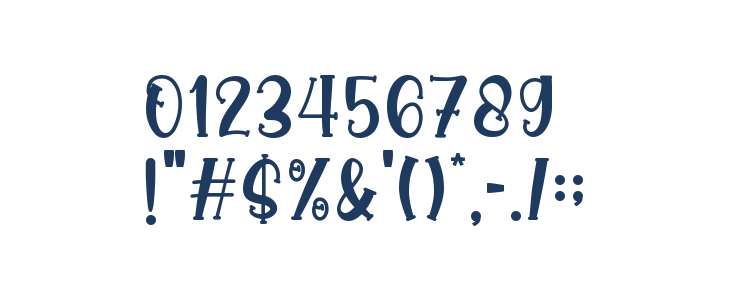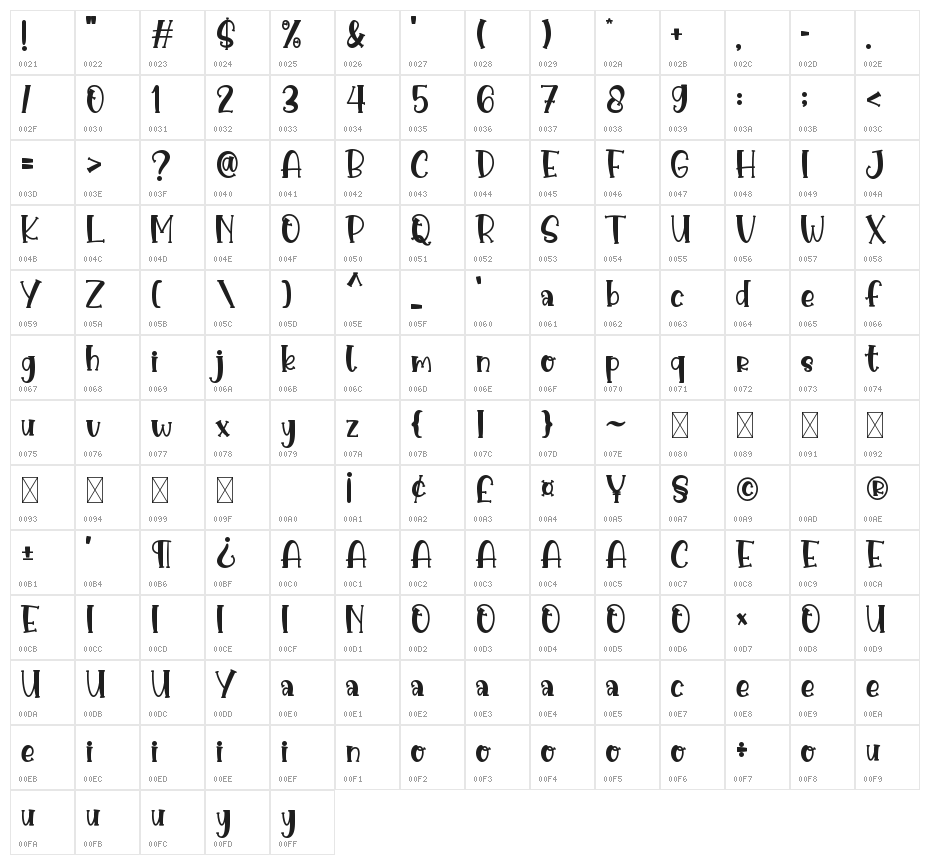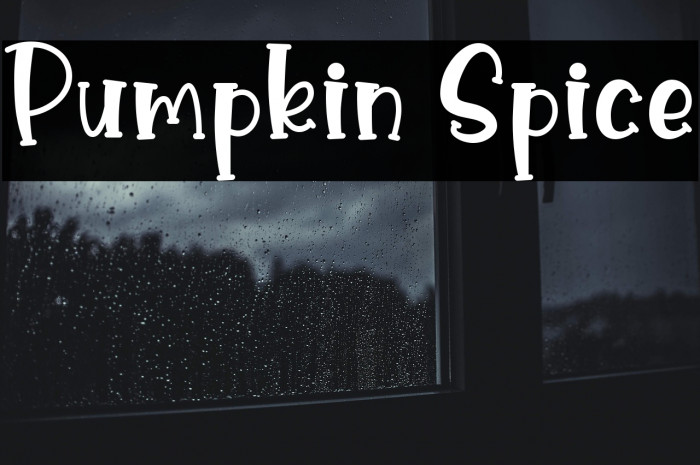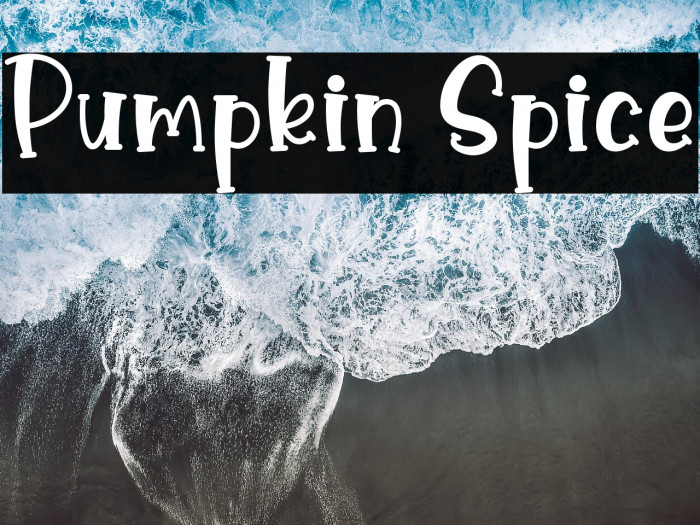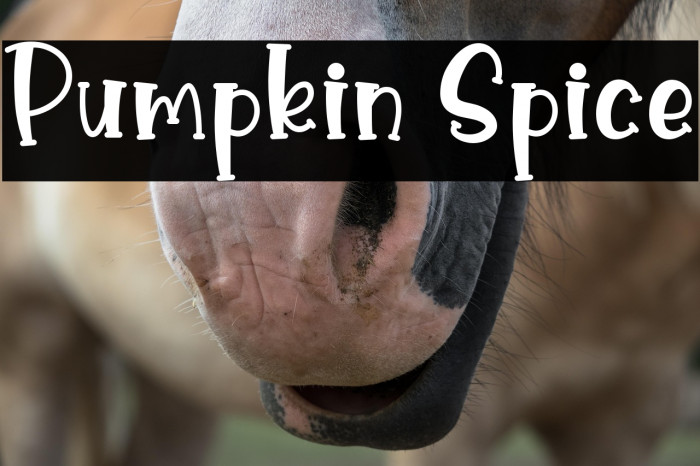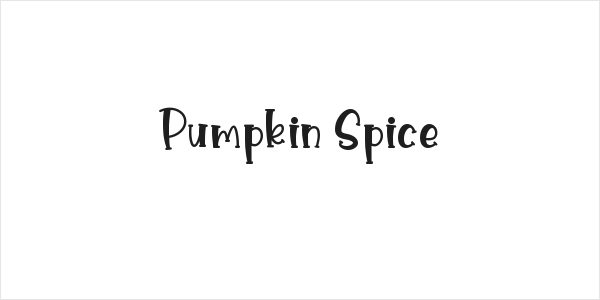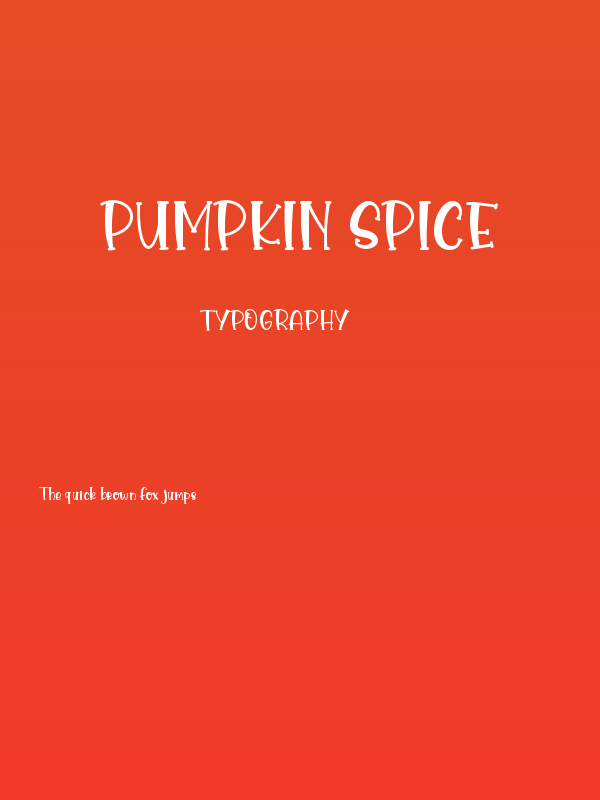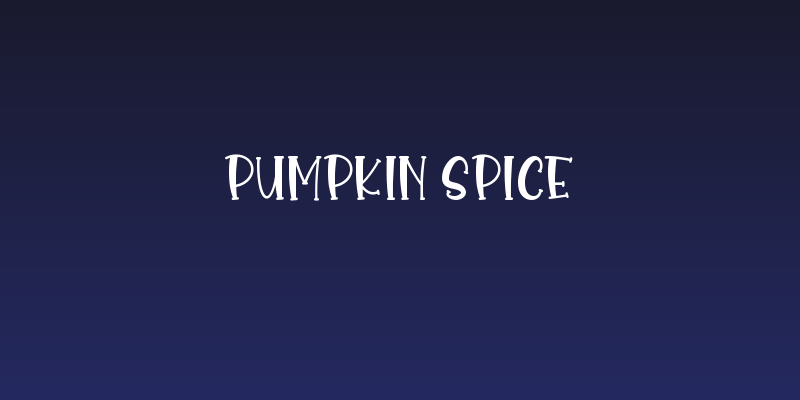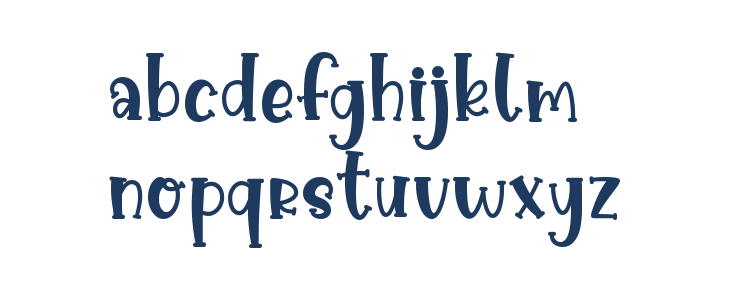
Pumpkin Spice Font
Pumpkin Spice Description
This playful and whimsical font features a hand-drawn style with a touch of quirkiness. The letters are bold and slightly irregular, giving them a lively and energetic appearance. The uppercase and lowercase characters maintain a consistent style, with rounded edges and a slight tilt, adding to the casual and friendly feel. The numbers and special characters follow the same design, ensuring a cohesive look across all text elements. This font's unique personality makes it ideal for projects that require a fun and informal touch.
| Proposed Projects | Ideal for children's books, playful branding, greeting cards, and creative posters. |